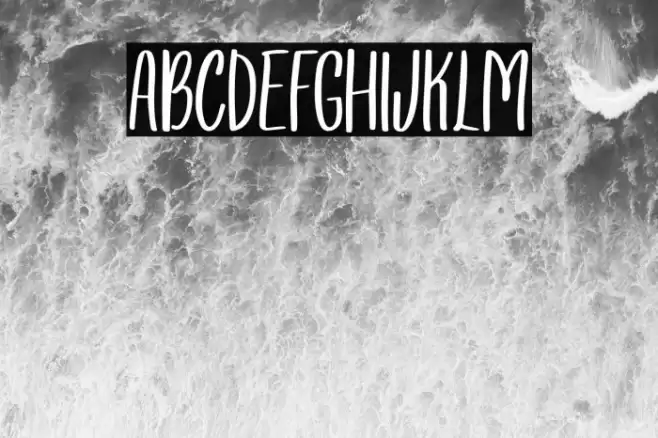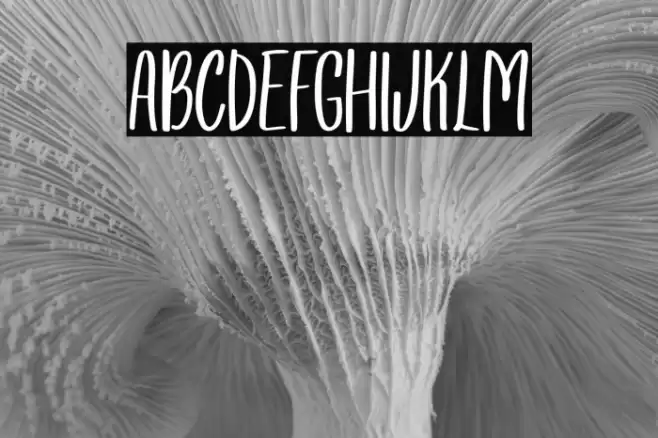
Wonsmith Regular Font
Wonsmith Regular Description
This font features a playful and energetic handwritten style, characterized by its flowing and connected strokes. The uppercase letters are tall and slightly narrow, with a consistent stroke width that gives a uniform appearance. The lowercase letters maintain a similar style, with some letters featuring loops and curves that add to the font's dynamic feel. The overall design is casual and friendly, making it suitable for projects that require a personal touch. The font's legibility is maintained despite its decorative nature, making it versatile for various design applications.
A playful and energetic handwritten font with flowing, connected strokes from Uncategorized fonts.
- Font: Wonsmith Regular
- Proposed Projects: Ideal for greeting cards, invitations, personal branding, and social media graphics.
- Overall Style: Casual
- Use Case: Logos, Headlines, Social media graphics